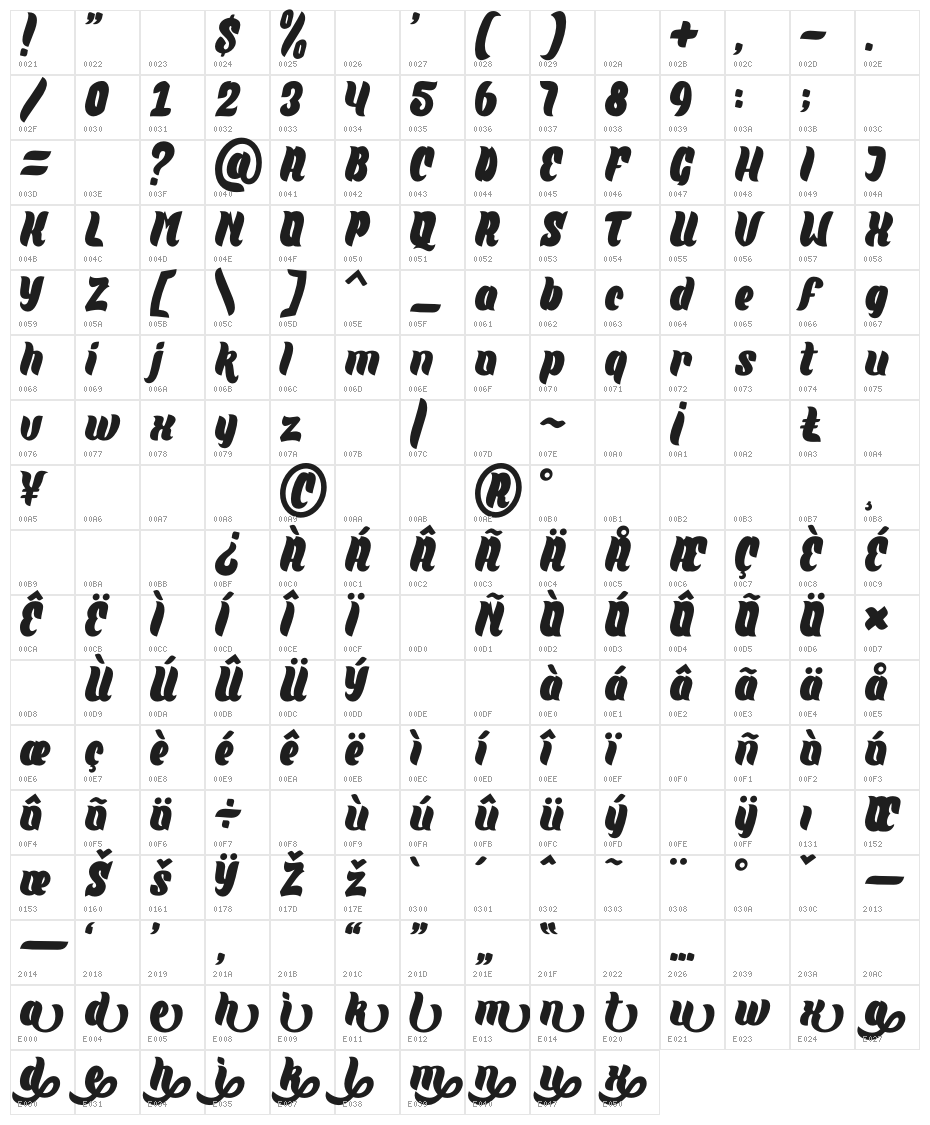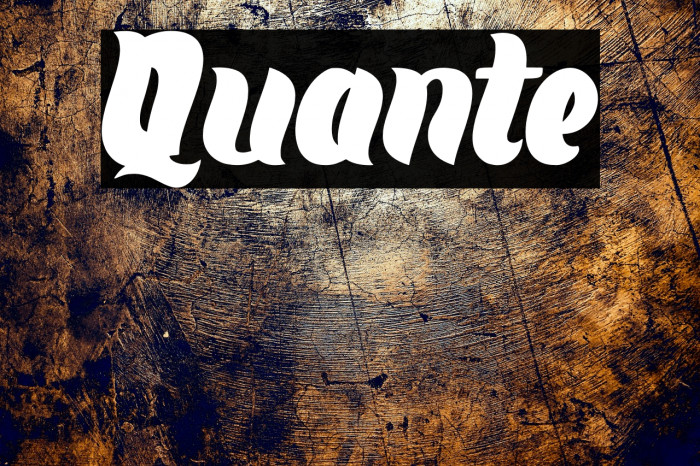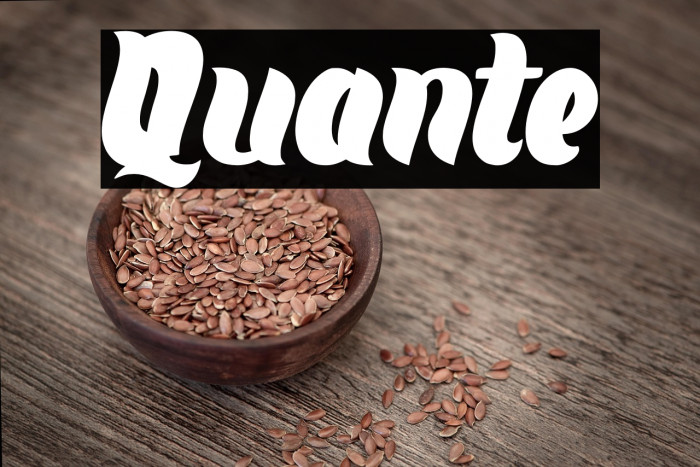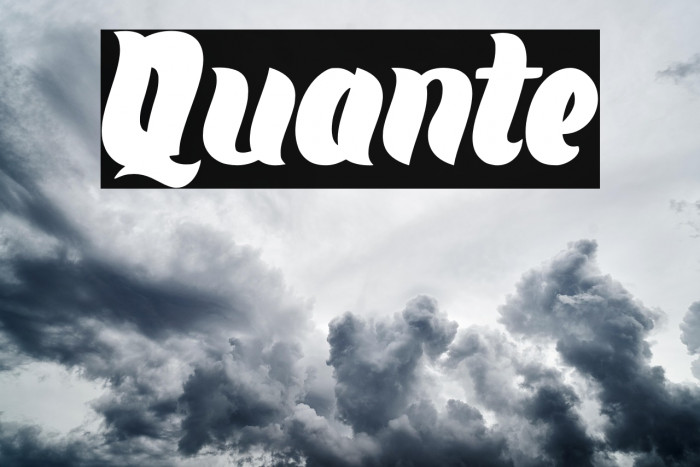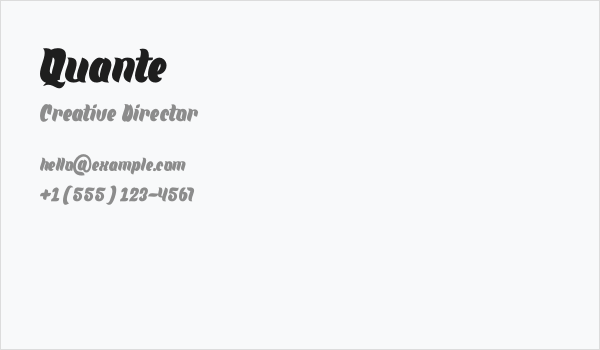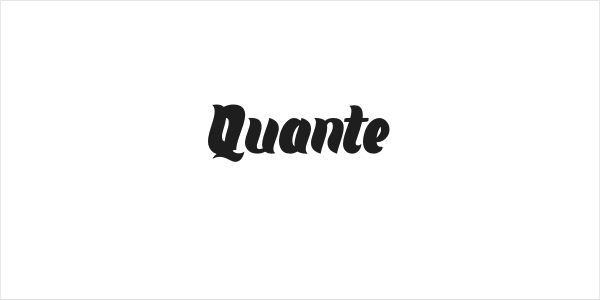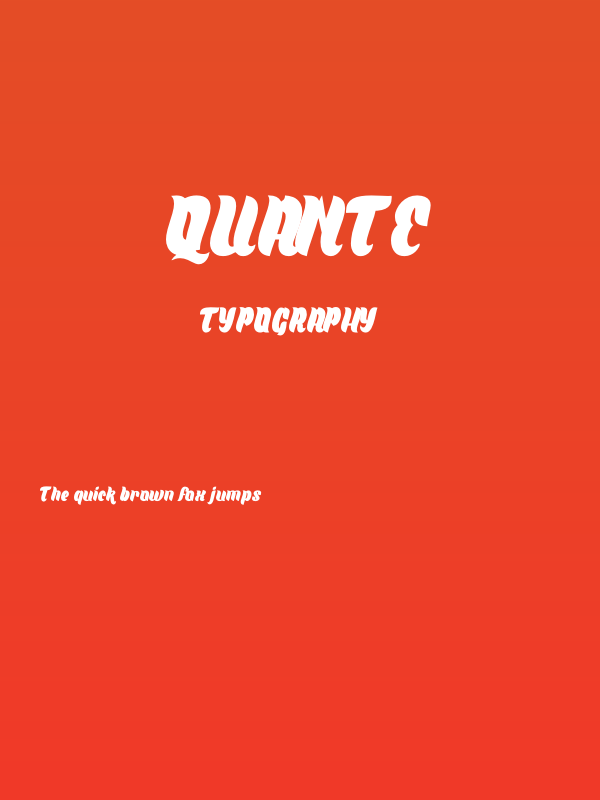
Quante Font
Quante Description
This font features a bold and dynamic script style with a strong presence. The letters are characterized by thick, flowing strokes that give a sense of movement and energy. The uppercase and lowercase letters maintain a consistent style, with rounded edges and a slight slant that adds to the fluidity. The numbers and special characters are equally bold, ensuring a cohesive look across all elements. This font's design is both eye-catching and versatile, making it suitable for various creative applications.